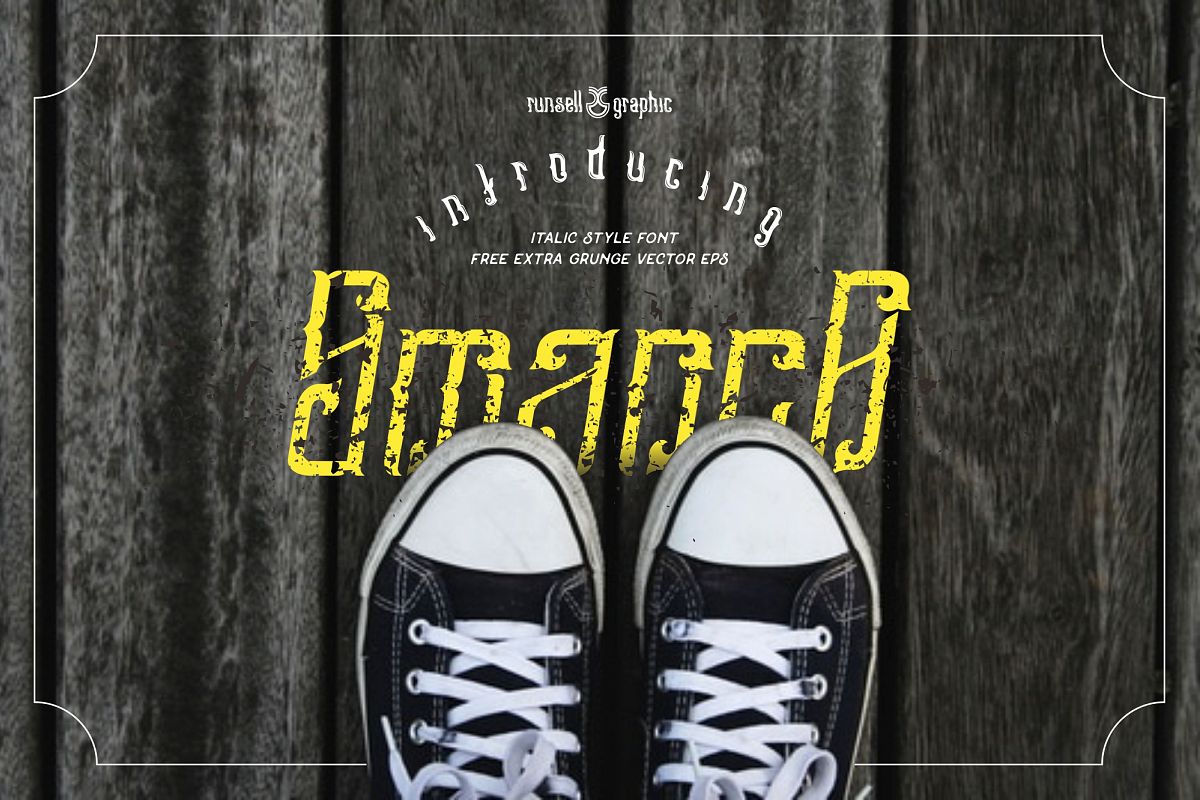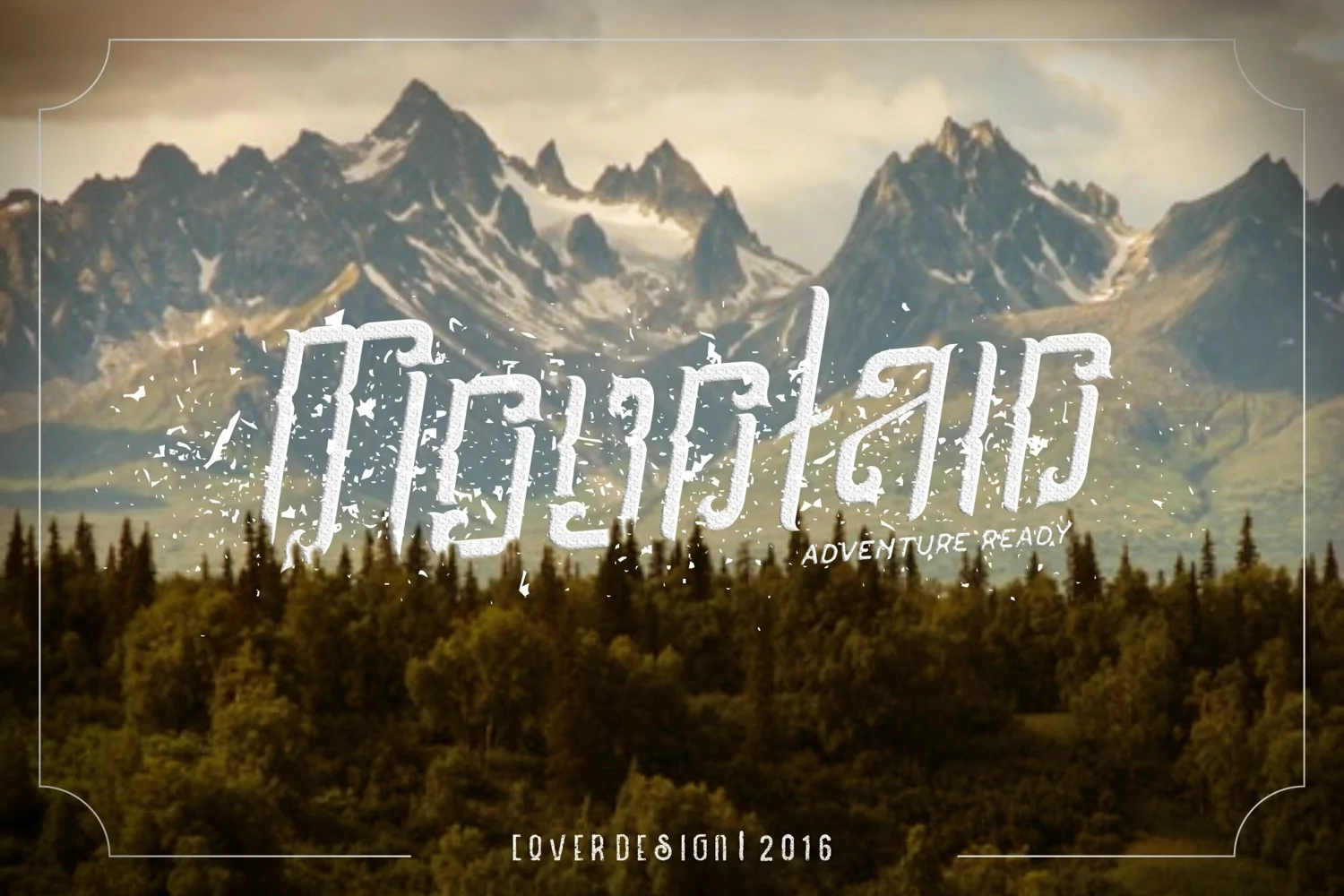
Smanca Typeface
Smanca is Italic Style typeface Add some thrills to your designs with Smanca! perfect for creating headline display text very easy. Smanca has its own explicit charisma; perfect for Logos, Advertising, Music Industry, Apparel Design, Labels, Signage, Etc.
– Uppercase, Lowercase, Numbering and function.